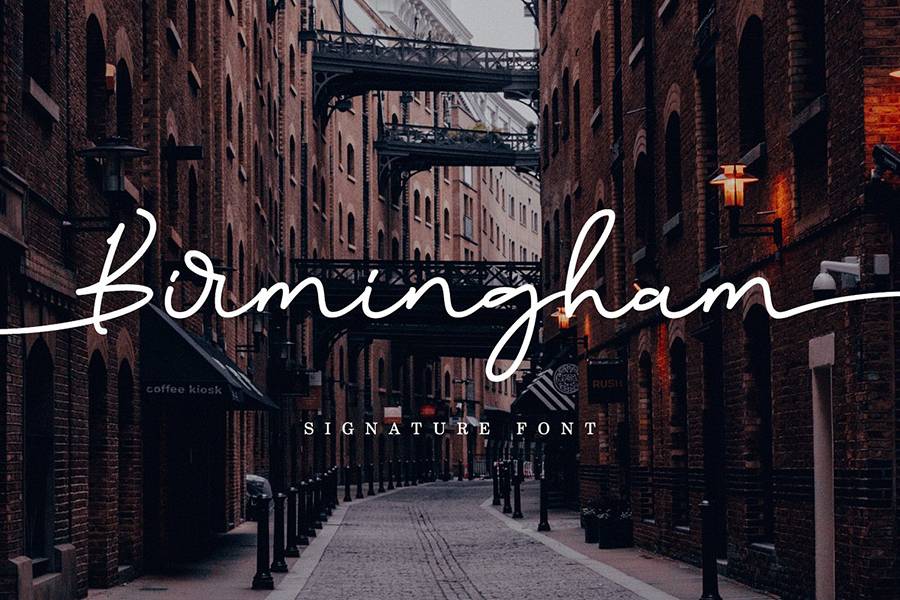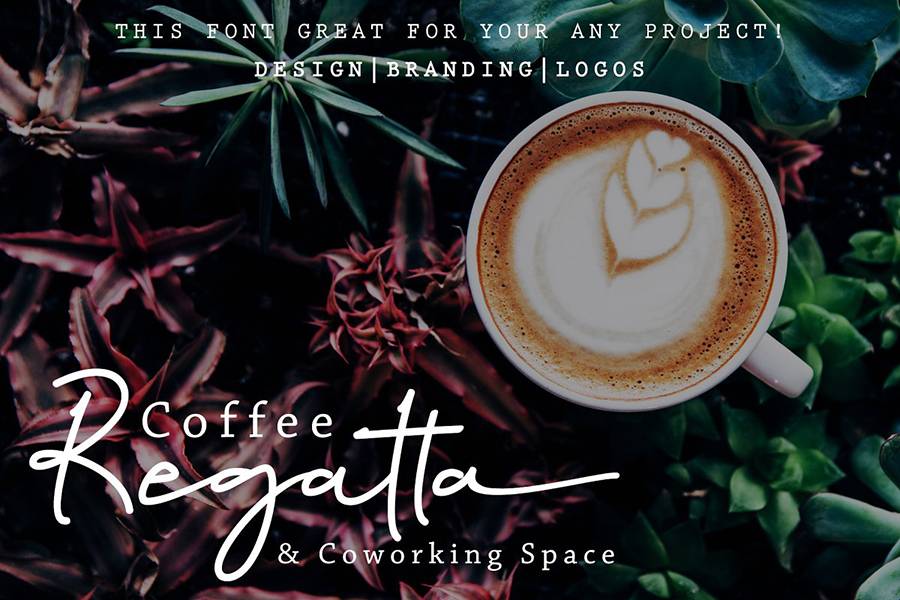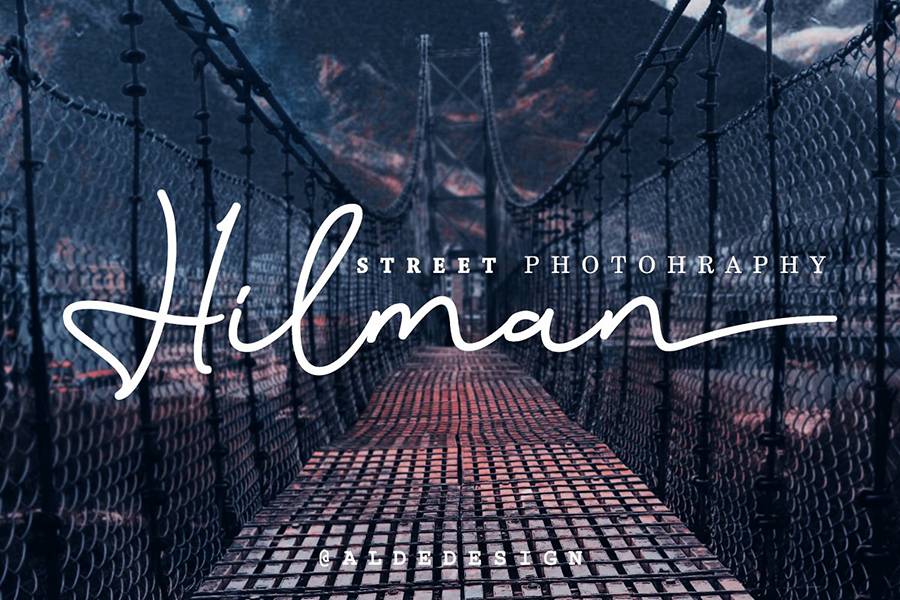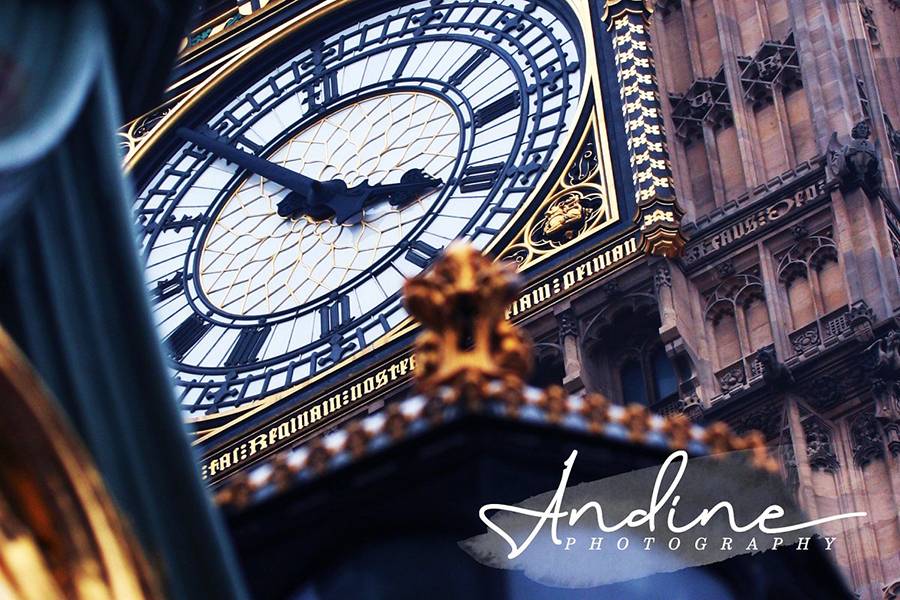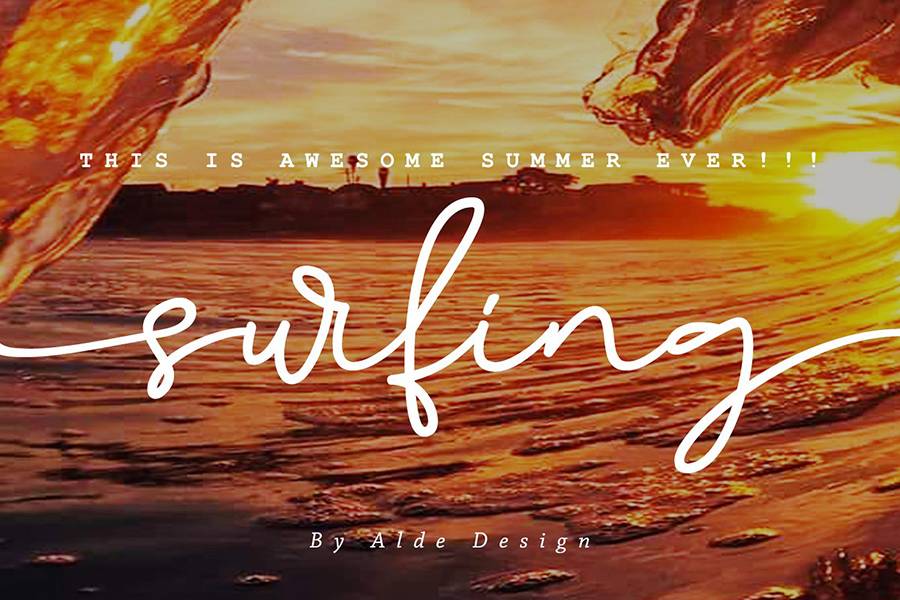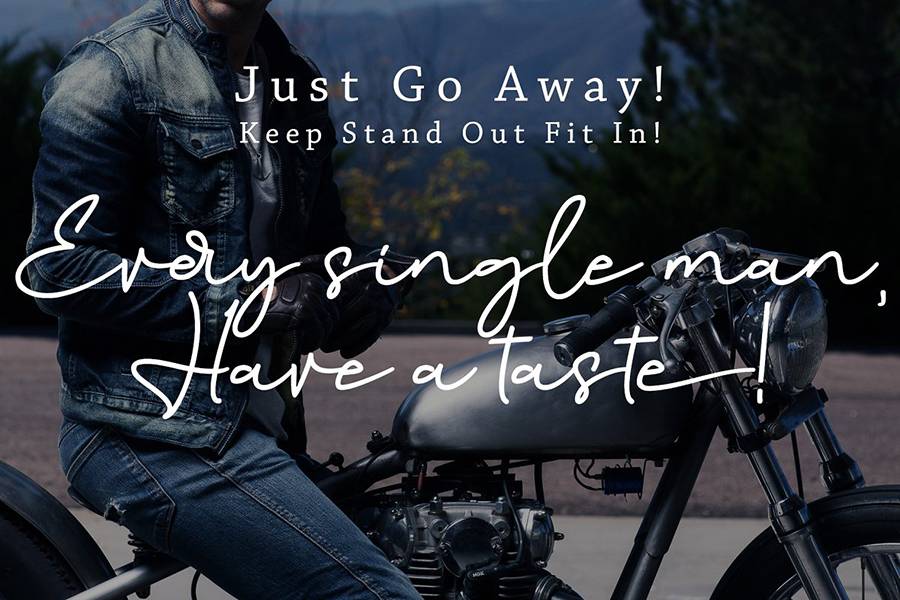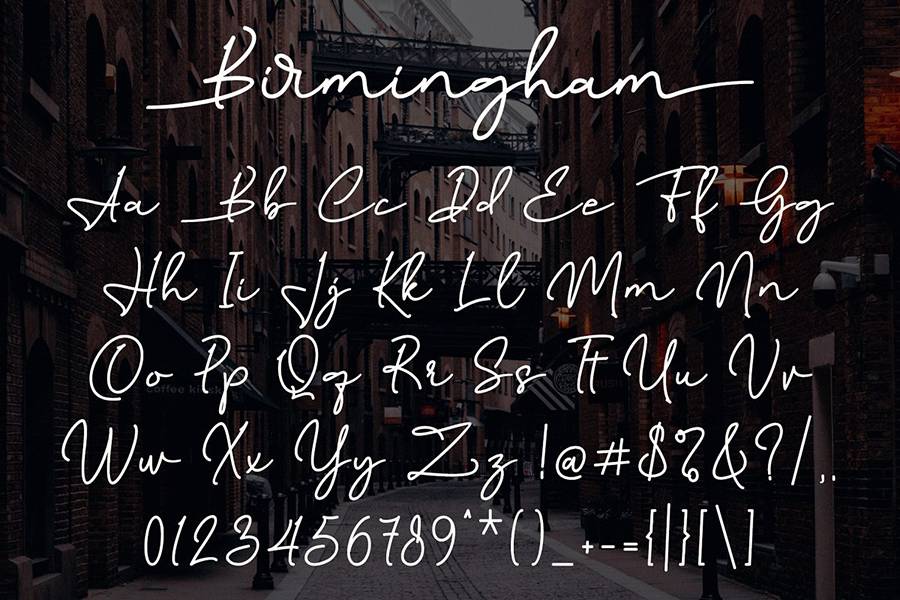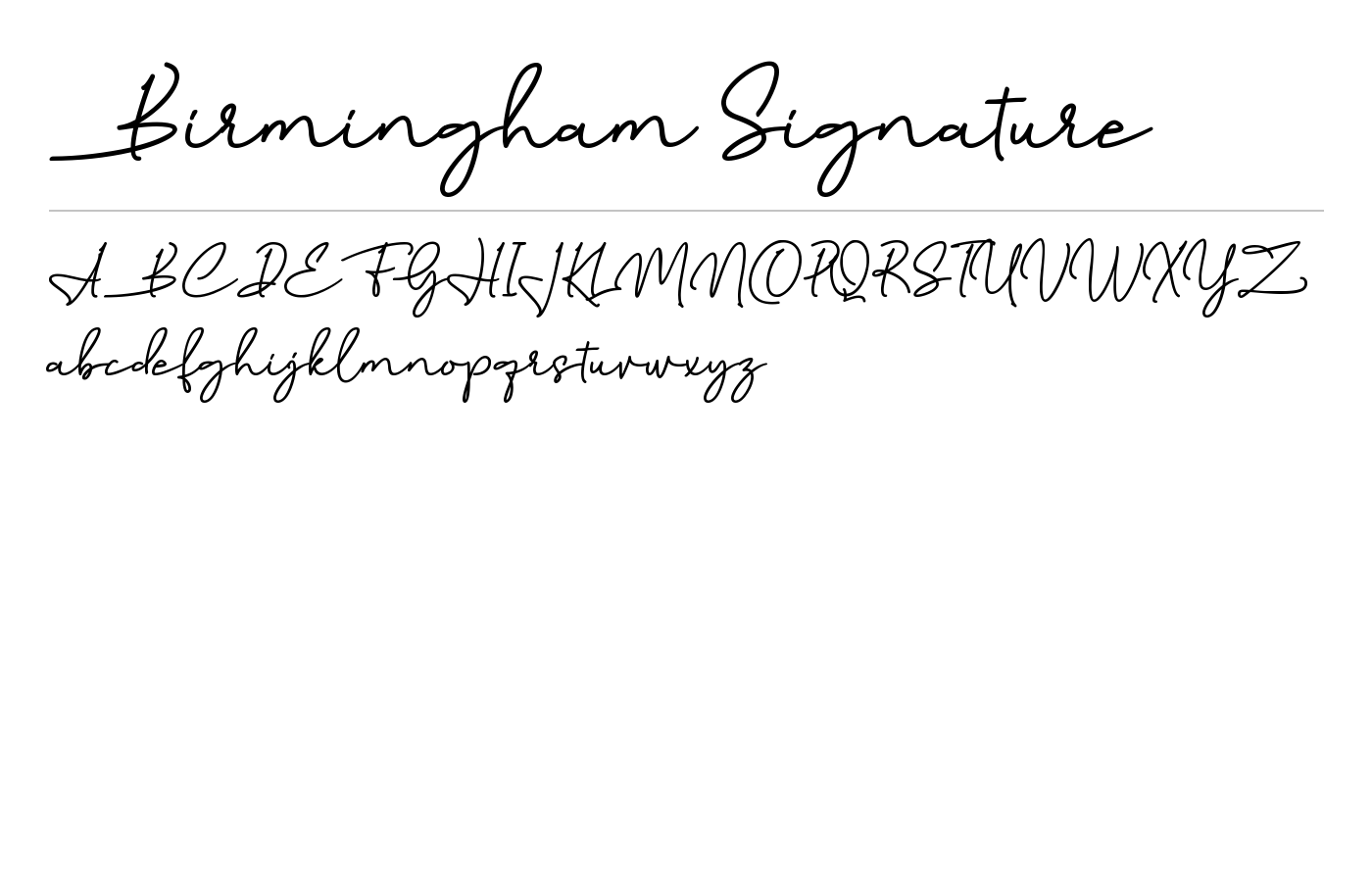
Birmingham Signature Script is a delicate and elegant handwritten font with a natural, flowing style that mimics authentic signature writing. Its thin, consistent strokes and smooth connections give it a personal, sophisticated feel, making it perfect for branding, invitations, and any design that seeks a refined yet approachable touch. This font works well in projects where a graceful and intimate atmosphere is desired, such as fashion, luxury goods, or personalized stationery.
Birmingham Signature Script Font
About Birmingham Signature Script Font
| Font family | Birmingham Signature Script Font |
| Designer | Aldedesign 2019 (Alde Saputro) |